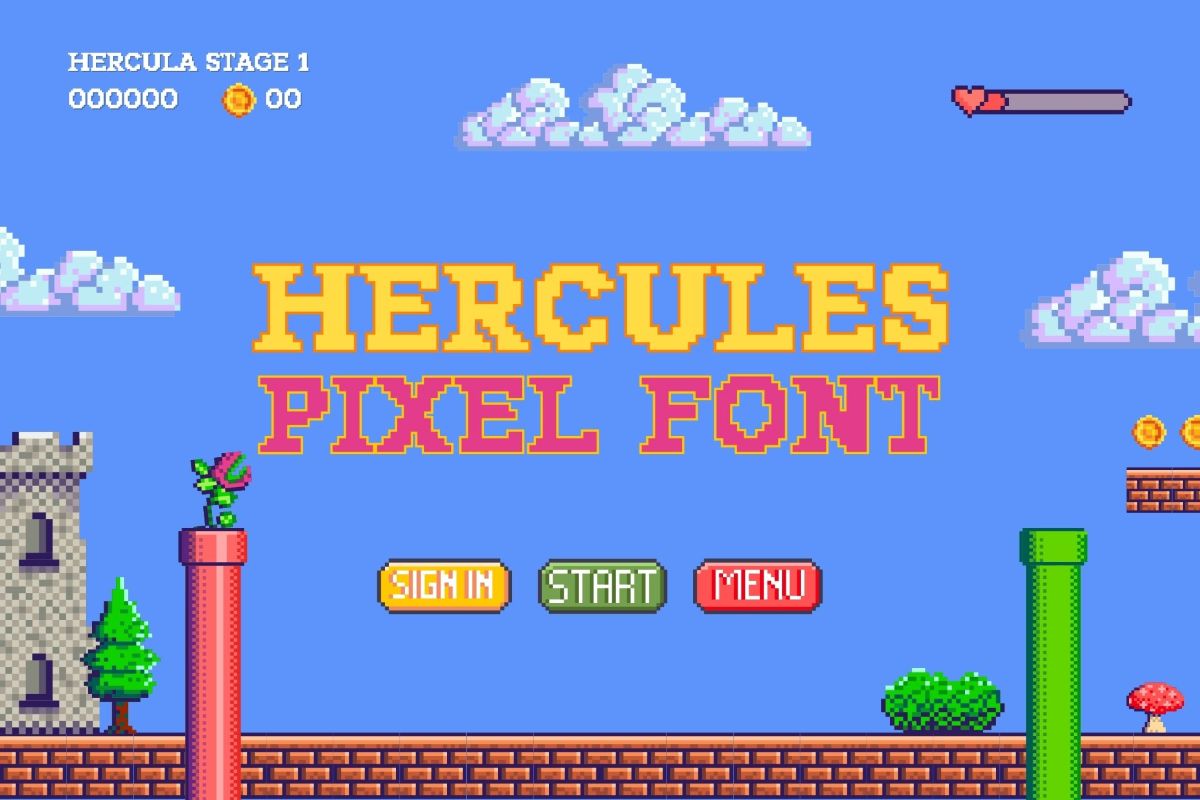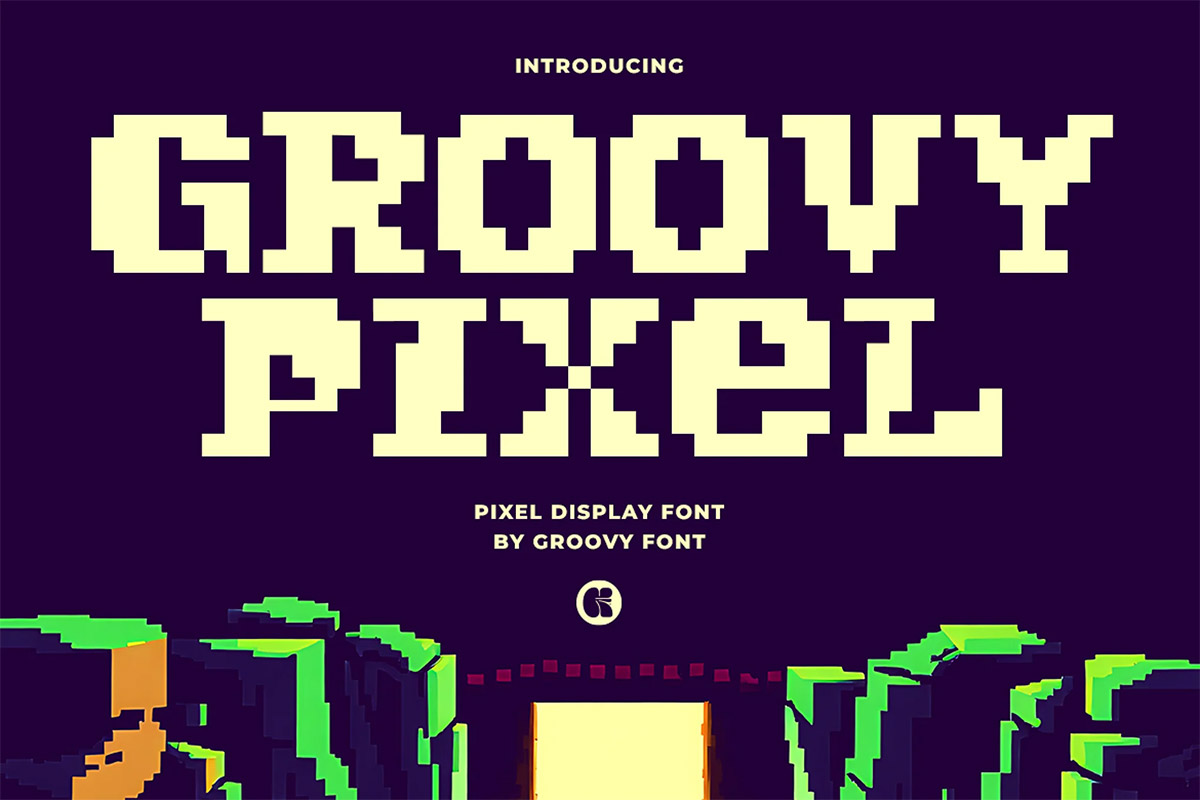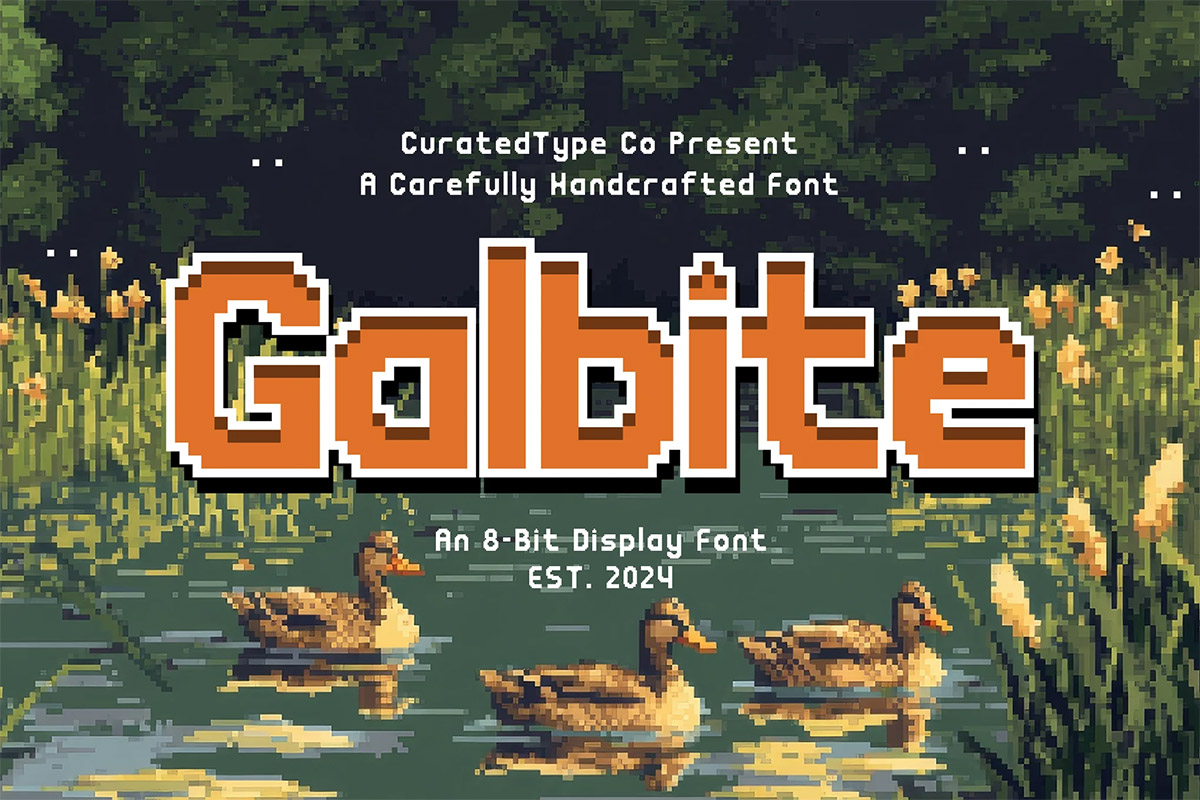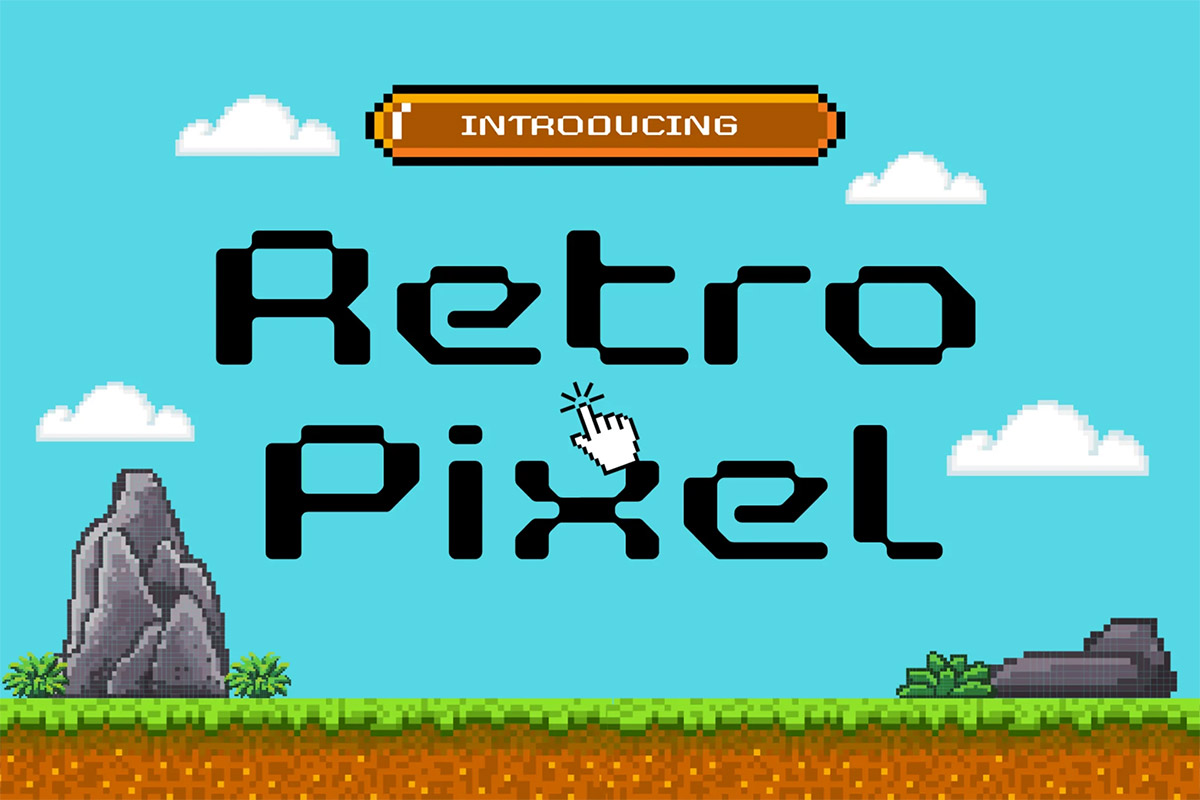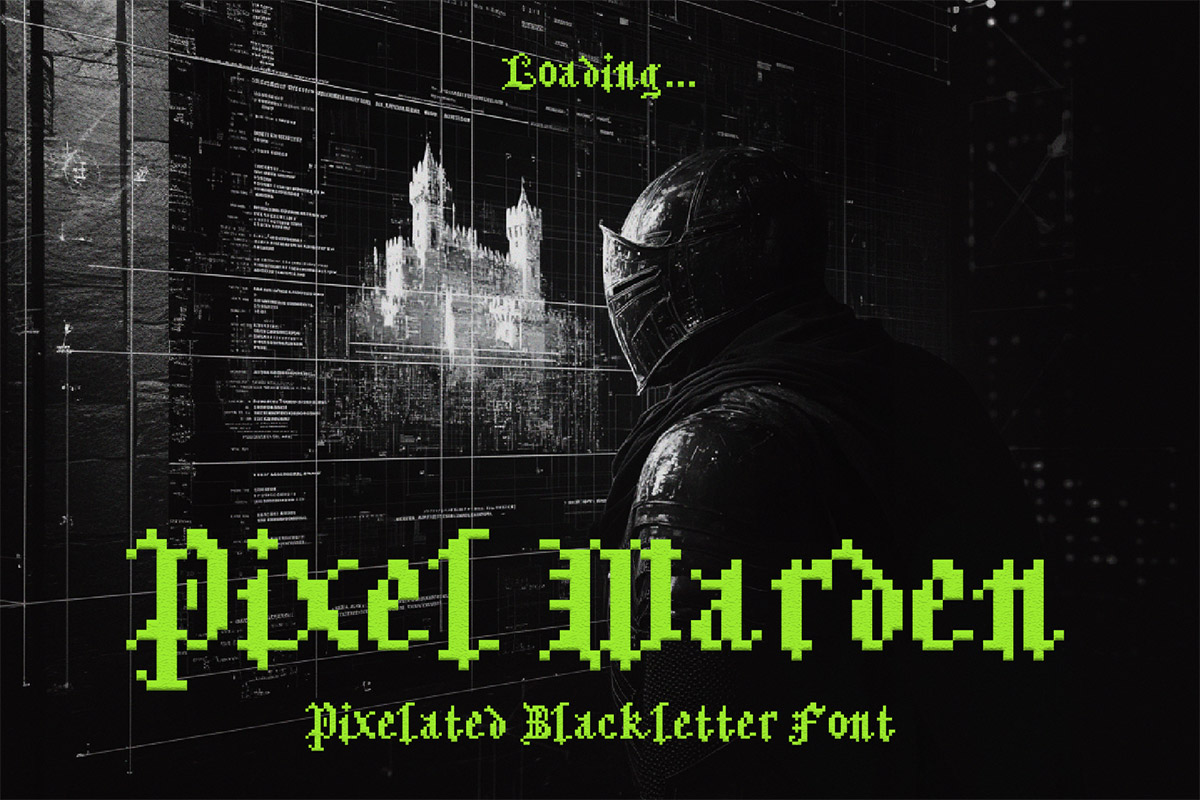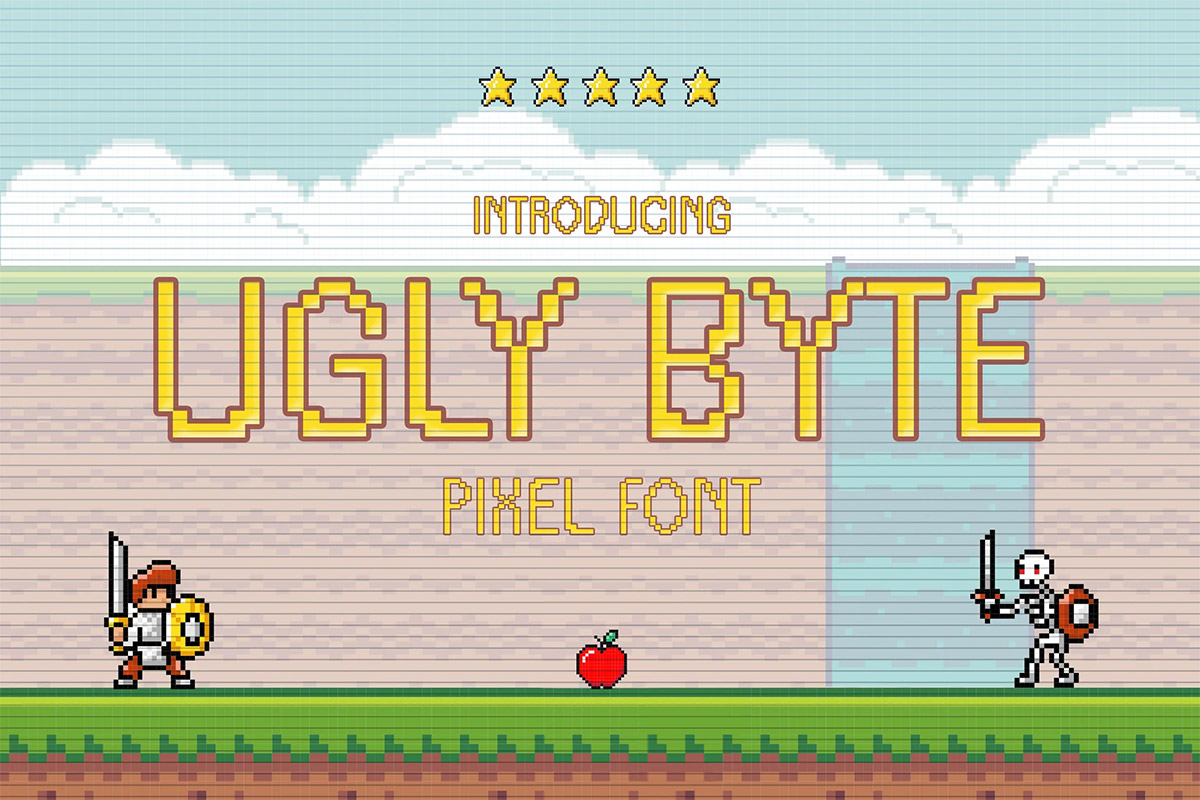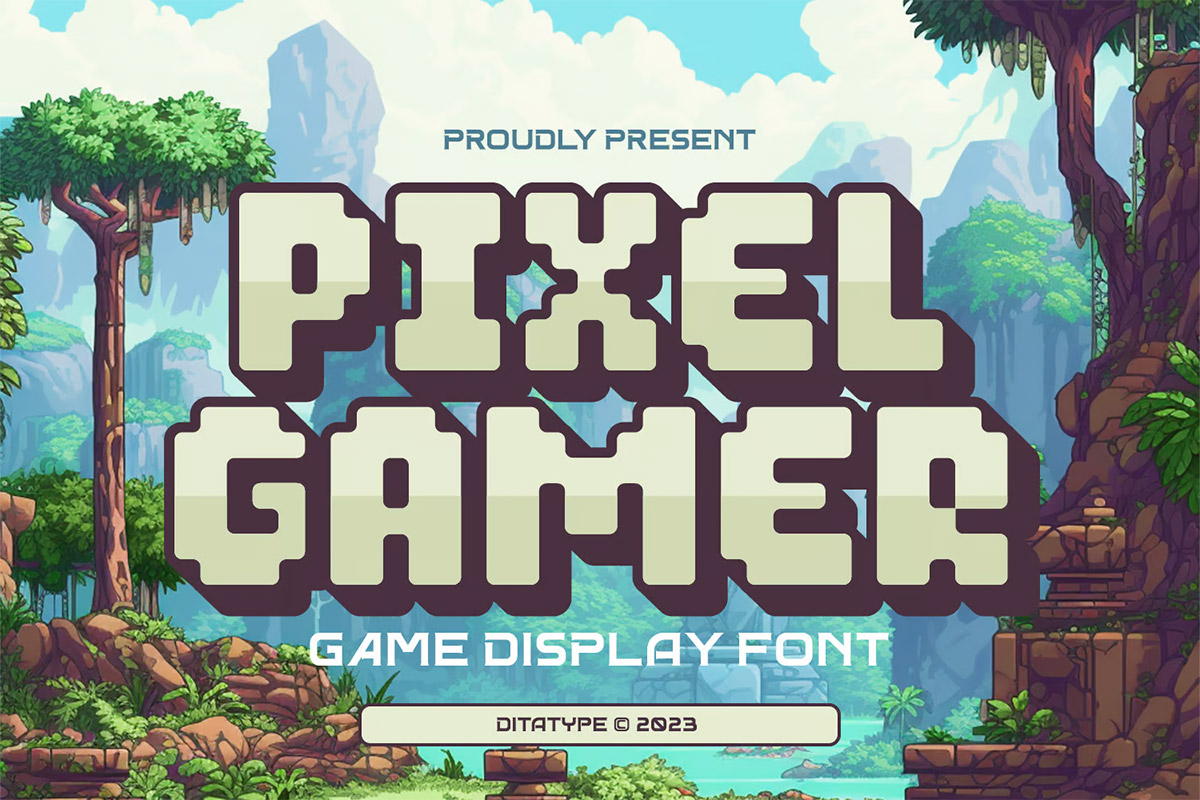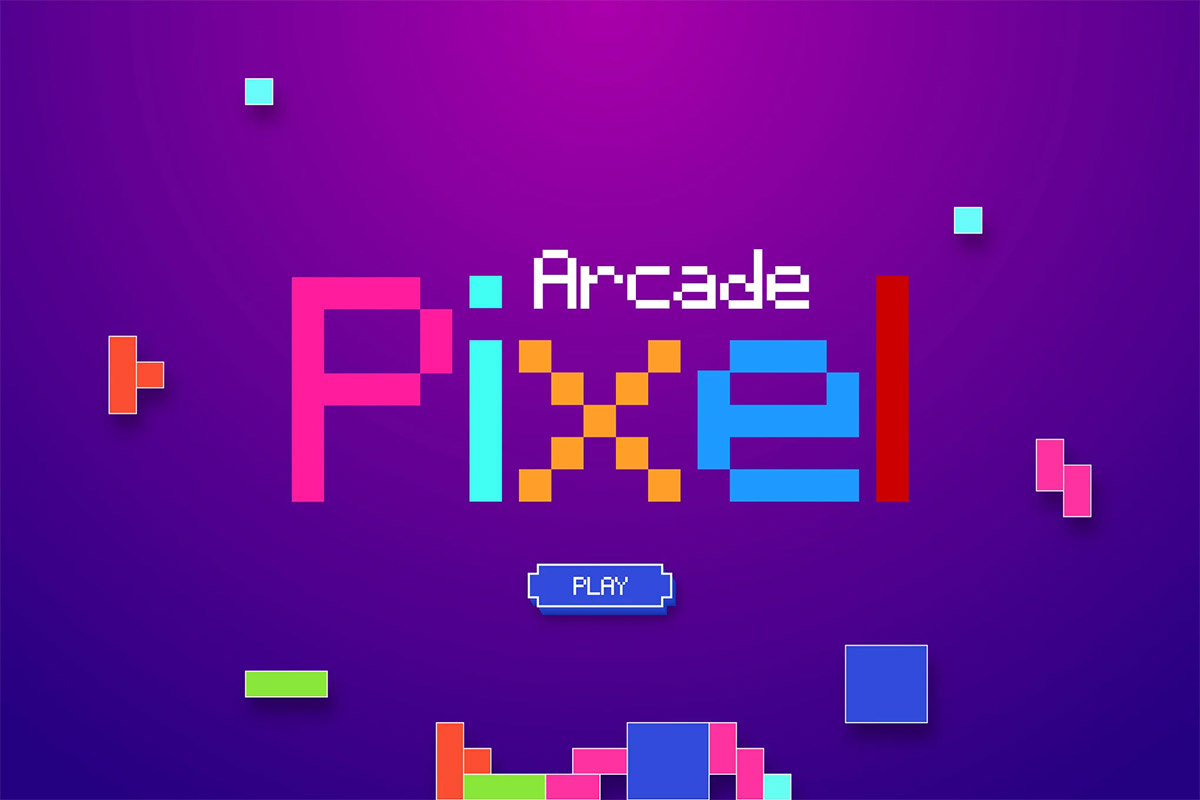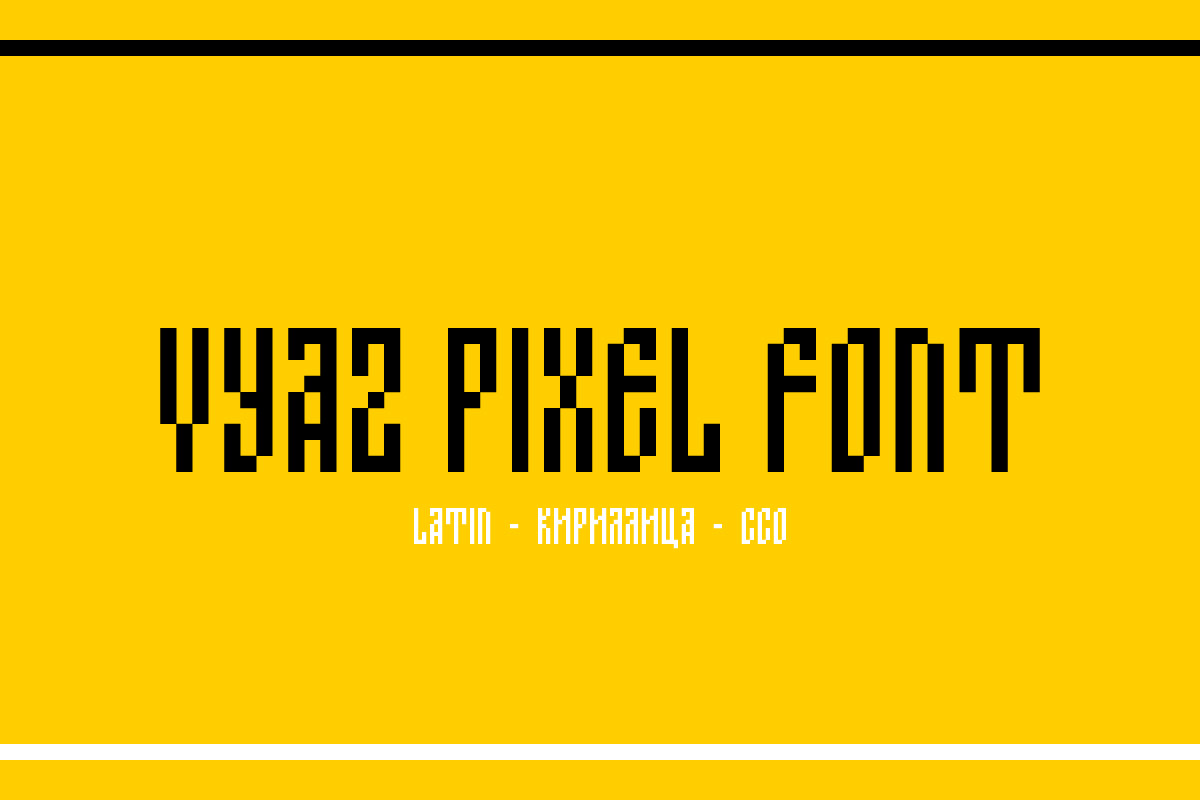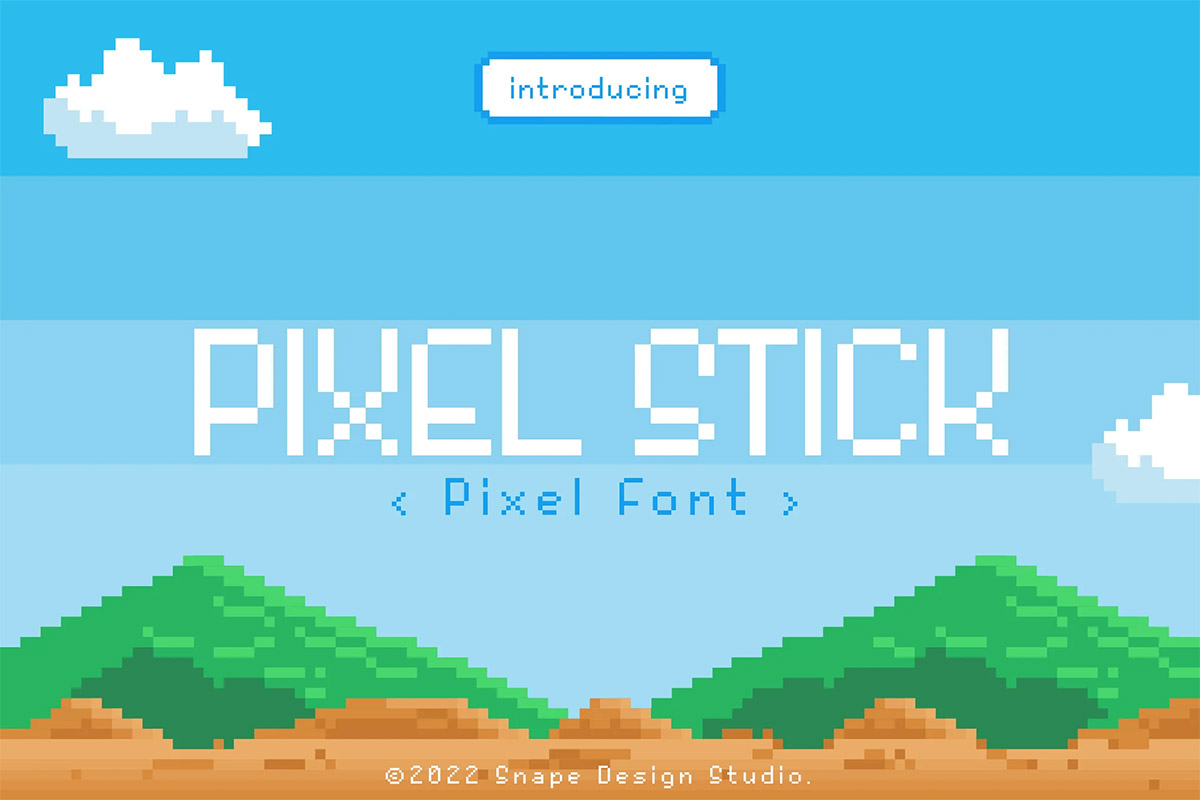
15 Best Pixel Fonts For Video Games, Devs & Thumbnail Design
Pixel fonts bring back that nostalgic memories and feel, the chunky, blocky letters that remind you of old-school games, retro consoles, and 8-bit screens. But they’re not just for gaming throwbacks. Today, pixel fonts are used everywhere, from video game UIs to dev tools, YouTube thumbnails, and even branding that wants to feel bold and digital.
They’re clean, grid-based, and full of character. Whether you’re building a retro platformer, designing a game menu, or making bold pixel-style covers, these fonts deliver that sharp, pixel-perfect look you need.
Where to Use Pixel Fonts
- Video Games
Ideal for game menus, scoreboards, in-game text, and loading screens — especially for 8-bit or indie-style games. - Thumbnail Design
Use pixel fonts to add a strong, nostalgic touch that stands out on YouTube, Twitch, or social posts. - Coding Projects
Great for mockups, dev tools, or terminal-inspired projects that want that digital, raw look. - Print & Merch
Pixel fonts also work well on stickers, posters, and t-shirts that lean into retro aesthetics.
Best Pixel Fonts for Retro Style and Sharp Design
Hercules Pixel Font
Hercules Pixel Font is a powerful pixel typeface built for gaming nostalgia and retro design. Hercules combines classic 8-bit aesthetics with modern versatility, creating a font that’s perfect for game developers, streamers, content creators, and designers looking to add authentic retro charm to their projects.
Chonky Bits Pixel Font
Chonky Bits – A Retro Pixel Font That Pops Step into pixel perfection with Chonky Bits, a bold and bubbly 8-bit typeface designed to make your text stand out. With two unique weights — Regular and Bold — this font is packed with everything you need to build striking titles, vibrant UIs, nostalgic posters, and more.
Gimbot Pixel Font
For NFT, pixel-style, game, or poster design needs, Gimbot fonts are specially made to enhance your value. Adding your style and headline summary is ideal. Additionally, we have created old style, NFT, and unique vibes specifically for Micro font, so feel free to develop any project that will highlight your core idea.
Groovy Pixel Font
Groovy Pixel is a charming Pixel Display Font reminiscent of retro video game aesthetics. The font style features a nostalgic pixelated design that is perfect for creating a retro vibe in game design themes.
Scorn Pixel Font
Scorn is a sci-fi pixel font with alternate characters that can be toggled via Caps Lock.
Galbite Pixel Font
Introducing Galbite, an 8-bit pixel style font that captures the essence of retro gaming with modern precision. This bold typeface features blocky, pixelated characters that evoke the nostalgia of classic arcade games and early computer graphics.
Retro Pixel Font
Pixel Warden Font
Step into a realm where the past meets the digital future with Pixel Warden, a bold blackletter pixel font that commands attention. Inspired by the grandeur of medieval manuscripts and the sharp precision of 8-bit artistry, this typeface is your gateway to creating designs that exude power, tradition, and a hint of rebellion.
Ugly Byte Pixel Font
Ugly Byte is a unique pixel display font. The possibilities for this font are endless, you can use it for mobile apps, games, retro design projects, and much more.
Pixel Gamer Display Font
Pixel Gamer is a charming display font designed in uppercase, inspired by retro pixel art. It features consistent proportions, ensuring a harmonious and balanced visual experience.
Arcade Pixel Font
Arcade Pixel is a retro pixel font style, perfect for retro game design theme, Also suitable for movie, documenter, film, logo, poster, game, book cover, headlines, title and many more projects.
Vyaz Pixel Font
Vyaz Pixel is a pixelated font that beautifully reinterprets the ornate elegance of old-style Vyaz lettering. Each character embodies the characteristic slant, elongated forms of traditional Vyaz, reconstructed in a blocky, pixel-art style that evokes both digital and historical aesthetics.
Pixel Stick Pixel Font
Pixel Stick is a retro pixel font style, perfect for retro game design theme, Also suitable for movie, documenter, film, logo, poster, game, book cover, headlines, title and many more projects. Add this font to your creative ideas and notice how it will make them stand out!
Super Pixels Pixel Font
Super Pixels is a retro pixel font style, perfect for retro game design theme, Also suitable for movie, documenter, film, logo, poster, game, book cover, headlines, title and many more projects.
Dottix Pixel Font
Dottix Pixel Font typeface excellent used for the manufacture quote text, logotype, header magazine, and many more.
Final Thoughts
Pixel fonts are more than just a retro trend—they’re useful tools for making games and designs look great. These fonts stay clear and sharp, even when small, which makes them perfect for video games, thumbnails, and other digital projects.
The 15 fonts in this list give you plenty of choices, from classic arcade styles to clean, modern looks. Try them out and see which one works best for your next project. Have fun creating! 🎮✨